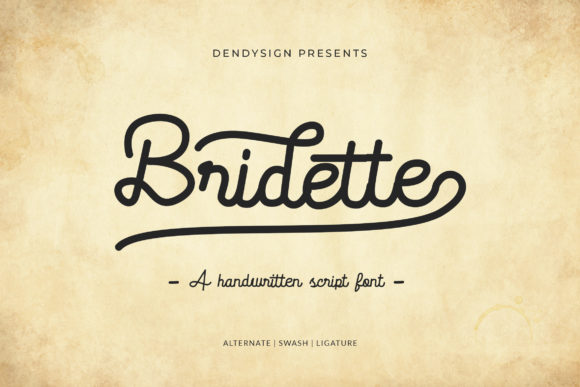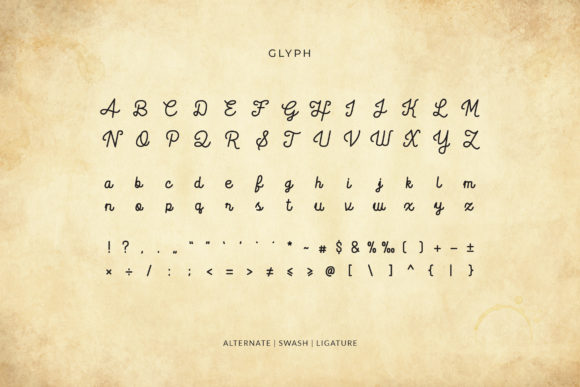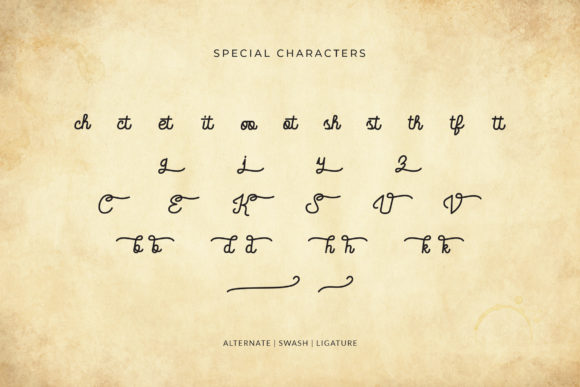
HomeScript FontsBridette Font Script Fonts Bridette Font FacebookXPinterestWhatsApp Bridette Font Poster 2 Bridette Font Poster 3 About Bridette Font Bridette is a cool handwritten font with a stunning vibe. Use it to add an authentic twist to any design project. DOWNLOAD ON CREATIVE FABRICAThis font is sold and delivered by Creative Fabrica. Font Canyon may earn a commission if you buy through this link. People also explored Canva Font Designer Vintage Font Berkah Font Baby Catherina Font Home Sweet Home Font Spoodbrush – Font Duo Font Uncle Font Honeymoon Font Eckhardt Slabserif JNL Font 337 0 TagsBridette Font Previous articleMellow Owl FontNext articleGluottine Font LEAVE A REPLY Cancel reply Comment: Please enter your comment! Name:* Please enter your name here Email:* You have entered an incorrect email address! Please enter your email address here Website: Save my name, email, and website in this browser for the next time I comment. Personal Use Free Bajt Rounded Personal Use Free Read more about this font 1980 Portable Personal Use Free Read more about this font Mowgli Personal Use Free Read more about this font Mail Ray Stuff Personal Use Free Read more about this font BLOG Top 7 Google Fonts Alternatives for Faster and Privacy-Friendly Web Design (2025) Top 7 Google Fonts Alternatives for Faster and Privacy-Friendly Web Design (2025) When it comes to web typography, Google Fonts has long been the go-to... Transform Your Website: Elevate Your Typography with 7 Best Web Font Generators The 10 Best Handwriting Fonts to Add Personality to Your Designs Best Fonts for YouTube Videos: Make Your Thumbnails Stand Out